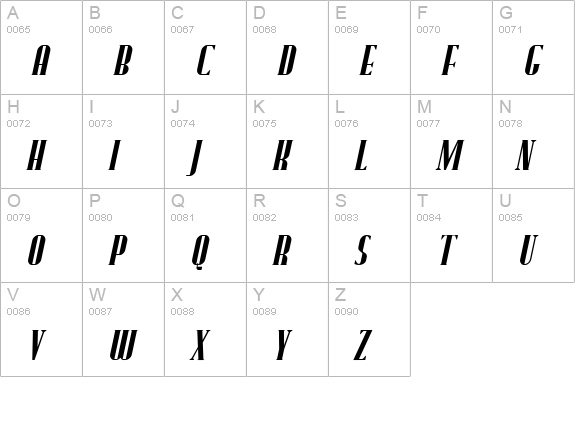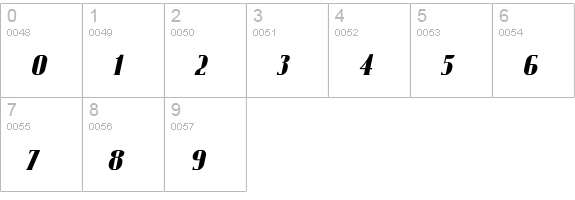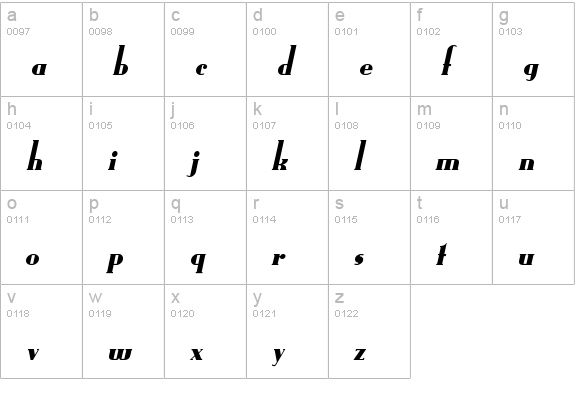
FundRunO Font Details
Introducing FundRunO font, a stylish and versatile typeface perfect for all your design needs. With its modern and clean design, FundRunO font exudes professionalism and creativity. This font is ideal for branding, logos, headlines, posters, and more. What sets FundRunO font apart is that it is completely free to download at FontsMarket.com. Yes, you read that right - this high-quality font is available for you to use without any cost. So why wait? Elevate your designs with FundRunO font today and make a lasting impression.